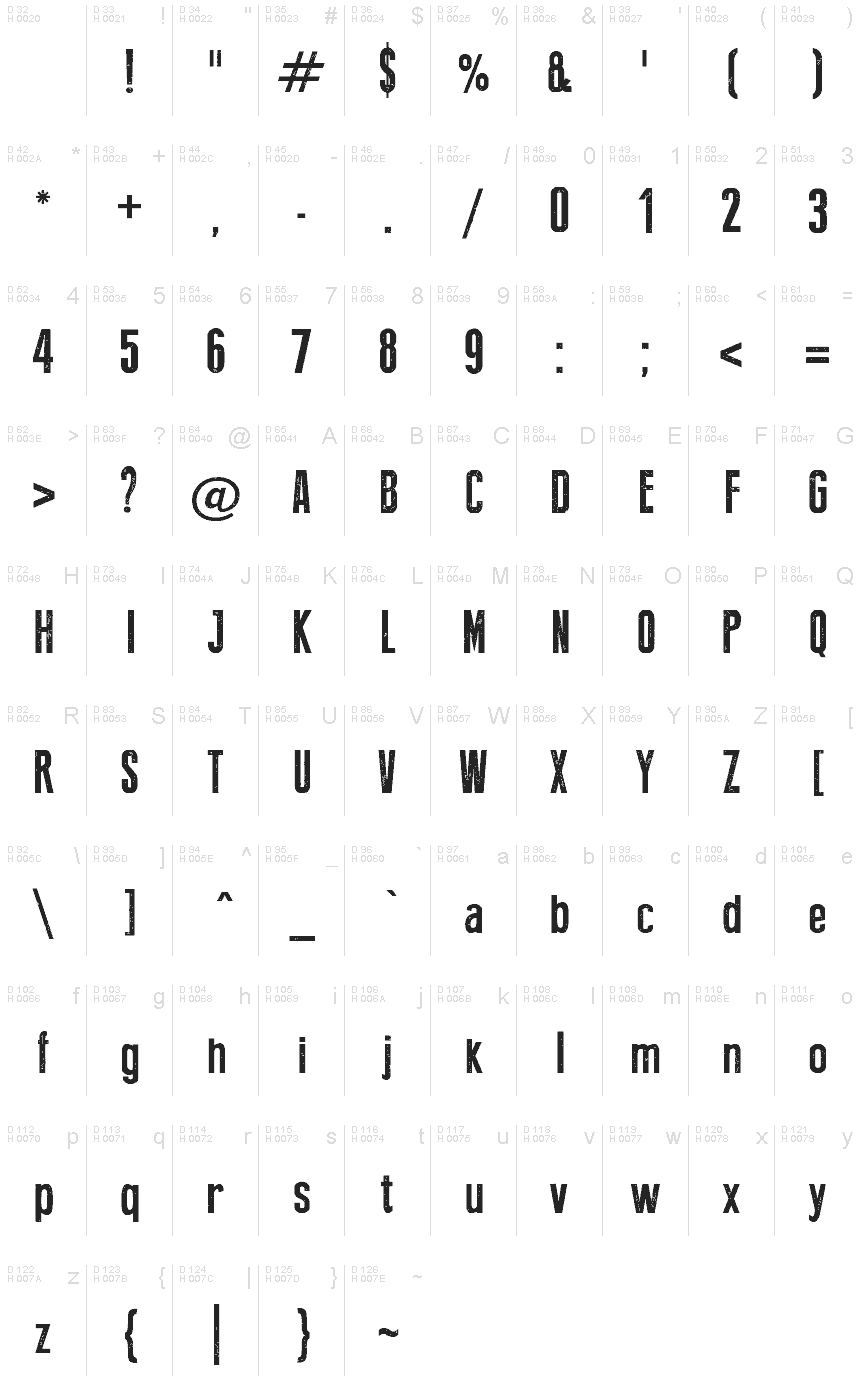
Press Style
Press Style font by Galdino Otten Fonts is a condensed eroded display typeface with a powerful vintage texture. Made to appear mechanical and industrial, this free font offers rugged characters with distressed elements as well as hard edges. In between the corners come noticeable round curves that make for excellent large-scale branding use.